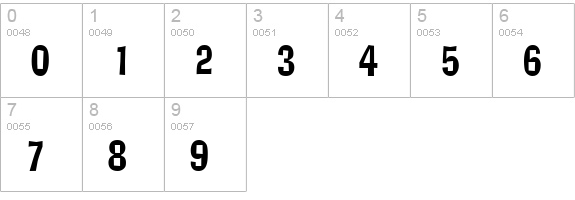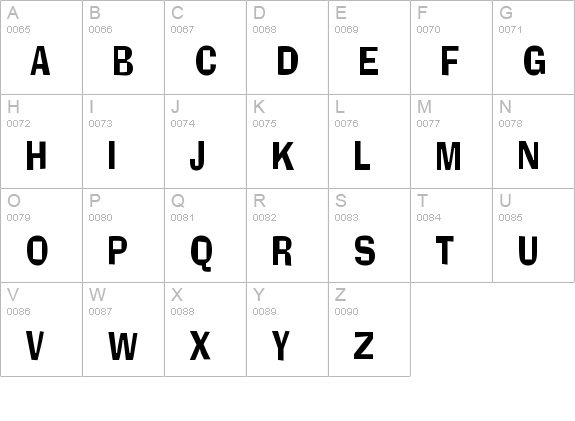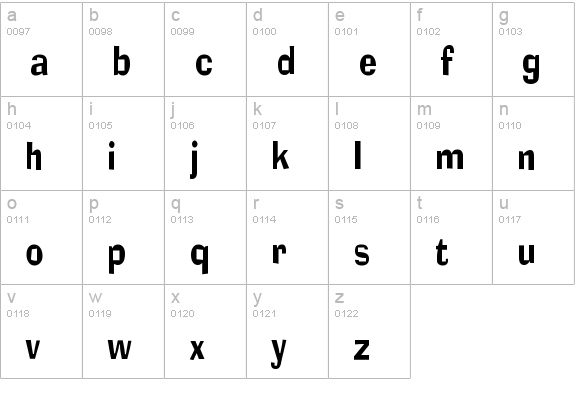
Alor Narrow Condensed Normal Font Details
Alor Narrow Condensed Normal is the standard, neutral, condensed-width variant in the Alor typeface family \xE2\x80\x94 well suited to general body text, paragraphs, and standard typographic work.
Alor Narrow Condensed Normal font is a sleek and modern typeface that exudes sophistication and elegance. Its condensed design makes it perfect for creating a clean and streamlined look in your designs. The precise letterforms and subtle curves of this font give it a professional and polished appearance, making it ideal for a wide range of projects. Best of all, Alor Narrow Condensed Normal font is available for free download at FontsMarket.com. Whether you are working on a branding project, a website design, or any other creative endeavor, this font will add a touch of class and refinement to your work. Don't miss out on the opportunity to enhance your designs with this versatile and stylish font. Download Alor Narrow Condensed Normal font today and elevate your projects to the next level.